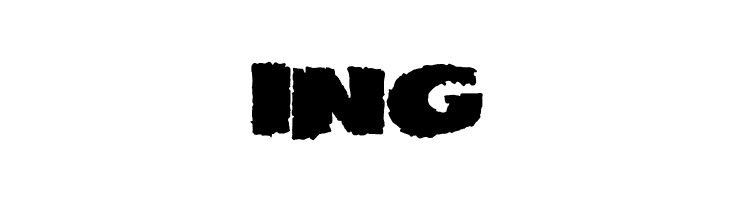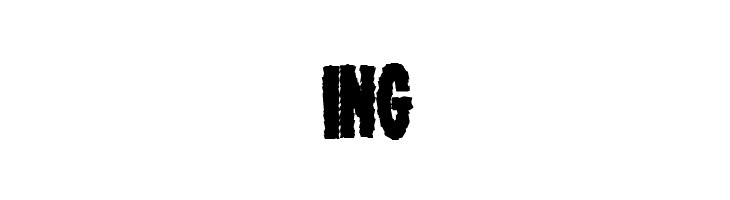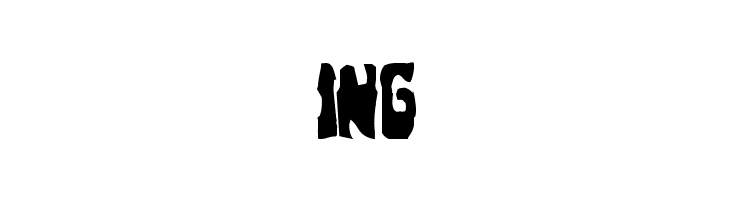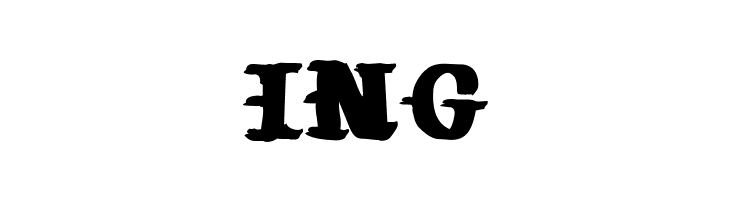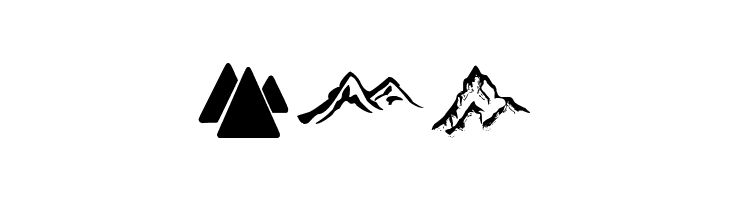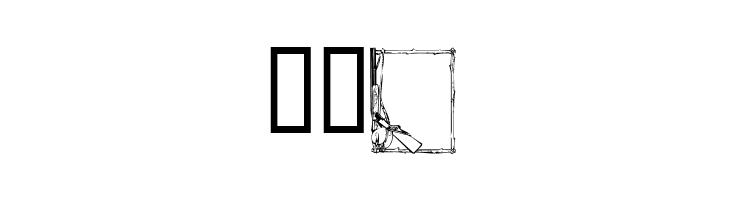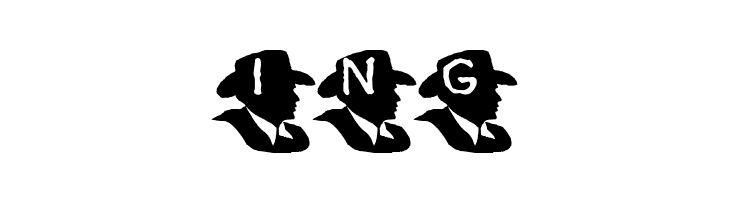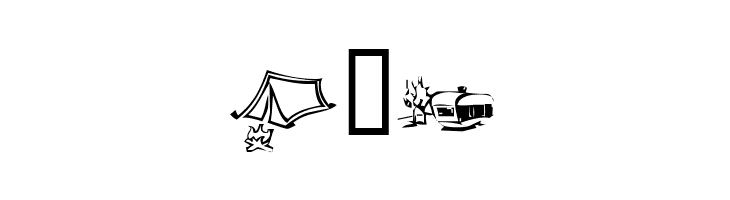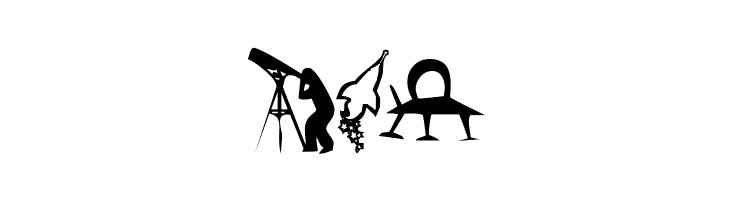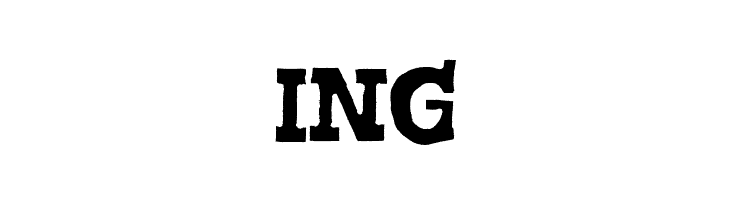
A bold, nautical-themed decorative font with anchor-like serifs.
A bold, angular font with sharp edges and a dynamic, modern aesthetic.
A bold, angular font with a monstrous and imposing style.
A bold, brush-style font with dynamic, edgy strokes.
A bold, textured font with a rugged, rocky appearance.
A bold, distressed font with a rugged, hand-crafted appearance.
A bold, distressed, and condensed font with a rugged, vintage look.
A bold, distressed font with a rugged, vintage aesthetic.
A bold, playful 3D font with jagged outlines and a gothic flair.
A bold, textured font with a cracked stone appearance and shadow effect.
A bold, playful italic font with a dynamic and whimsical style.
A bold, jagged font with an irregular, monster-themed design.
A bold, vintage-style font with a rugged, maritime-inspired aesthetic.
Decorative mountain icon set with varied styles and detail.
A bold, rugged, hand-drawn style with uneven edges.
A playful, animal-themed decorative font with bold uppercase letters.
A playful font with letters on skateboards, perfect for sporty or youthful designs.
A playful, space-themed collection of sign-like designs with bold, clear text.
A collection of hunting-themed illustrations, not a traditional font.
A bold, decorative font with cowboy hat motifs integrated into each letter.
A decorative font with camping-themed icons.
A collection of hunting-themed illustrations replacing traditional characters.
A decorative font with playful, space-themed illustrations.
A bold, rugged font with a distressed, vintage Wild West style.
A bold, Western-style font with sharp angles and unique cutouts.
A bold, comic-inspired font with unique graphic elements.
A bold, angular font with a futuristic and dynamic design.
A bold, edgy font with unique skull-like details for a rebellious look.
A bold, playful font with chunky, uneven letterforms and a whimsical style.
A bold, 3D italic font with a dynamic and decorative style.
A whimsical decorative font featuring a child fishing silhouette with integrated letters.